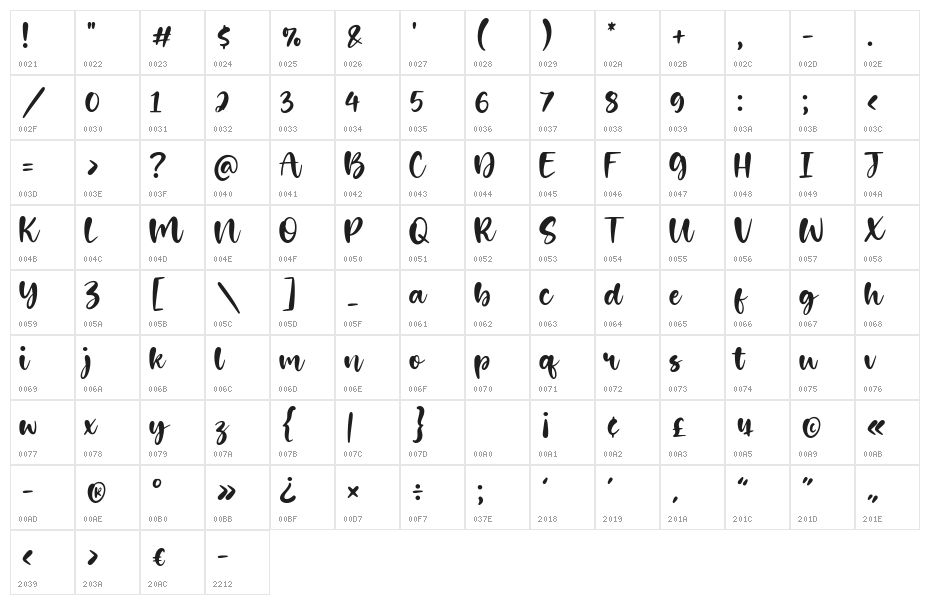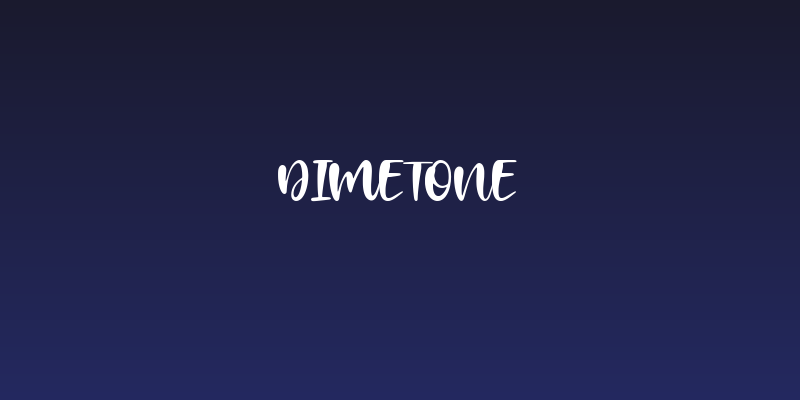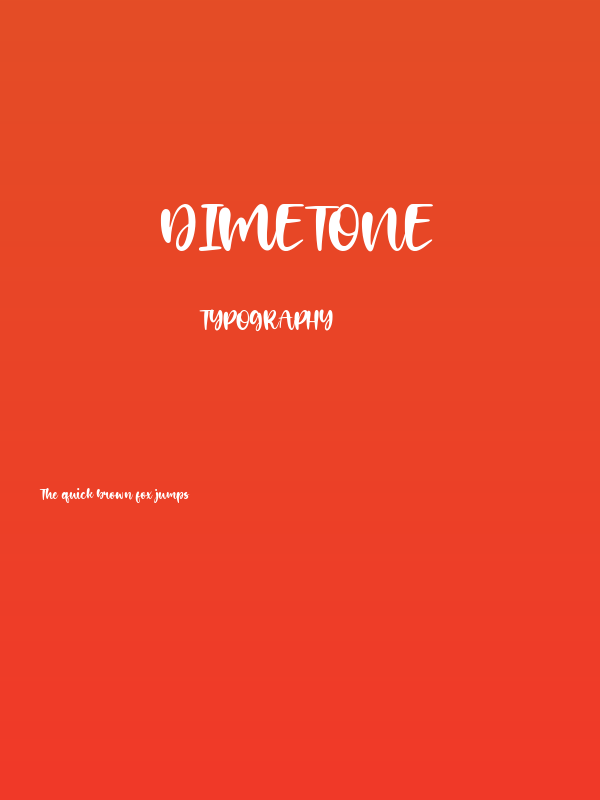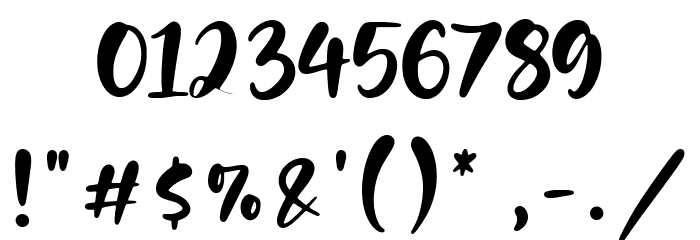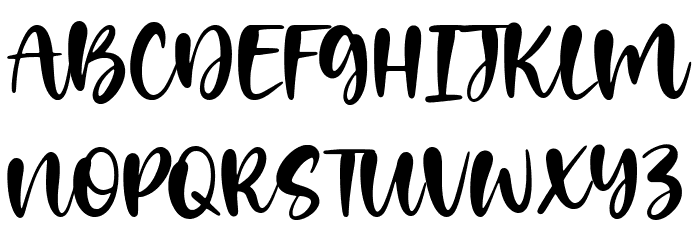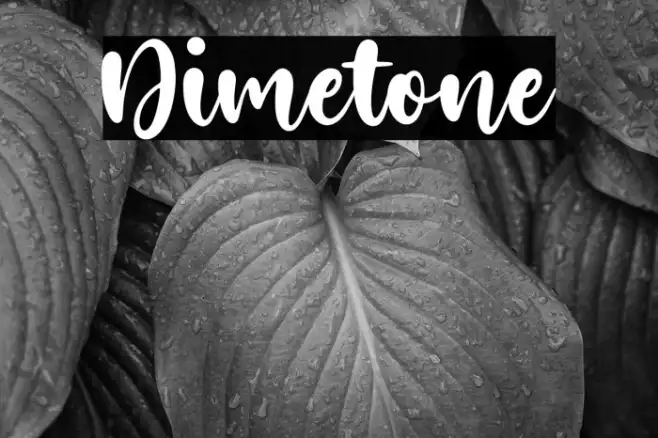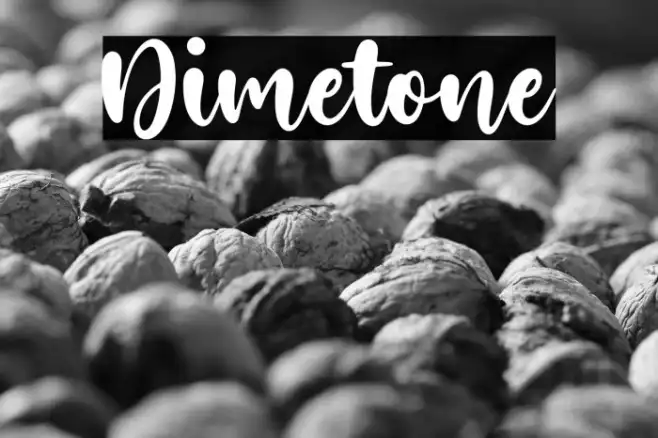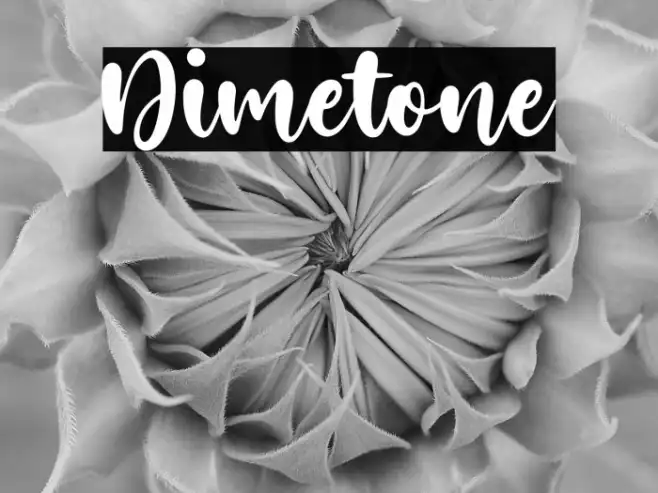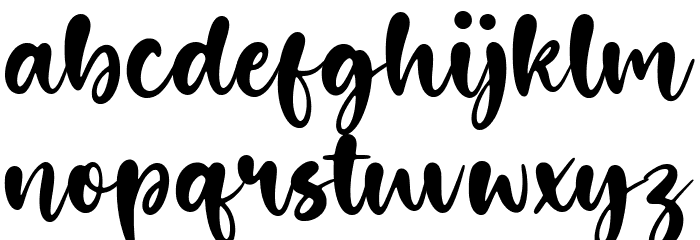
Dimetone Font
Dimetone Description
This font exudes a lively and expressive character, featuring bold, flowing strokes that mimic the fluidity of handwriting. The letters are interconnected, creating a seamless and dynamic appearance. The uppercase and lowercase letters maintain a consistent style, with rounded edges and a playful bounce. The numerals and special characters are equally expressive, maintaining the font's overall energetic and casual vibe. This font is perfect for projects that require a personal touch, such as invitations, greeting cards, or branding materials that aim to convey warmth and approachability.
| Proposed Projects | Ideal for invitations, greeting cards, branding, and any project needing a personal, lively touch. |